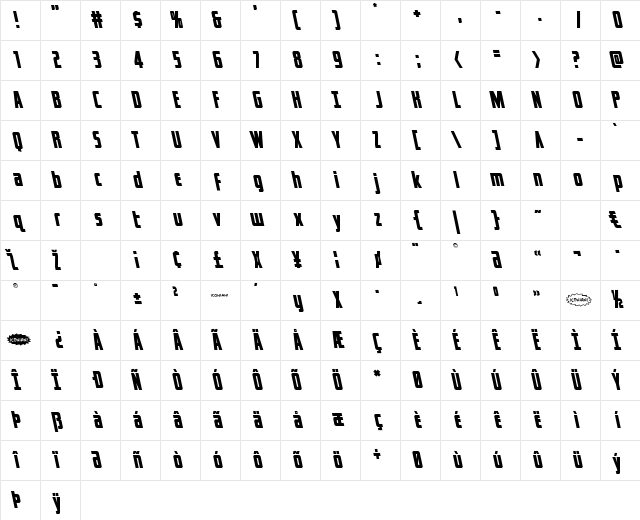
Complete Captain Canaveral Leftalic Italic glyph index. Displaying only characters natively supported by Captain Canaveral Leftalic Italic font.
Captain Canaveral Leftalic is a composed and adaptable typeface that performs quietly and consistently across a wide range of design contexts. The slanted form adds forward momentum and visual energy.